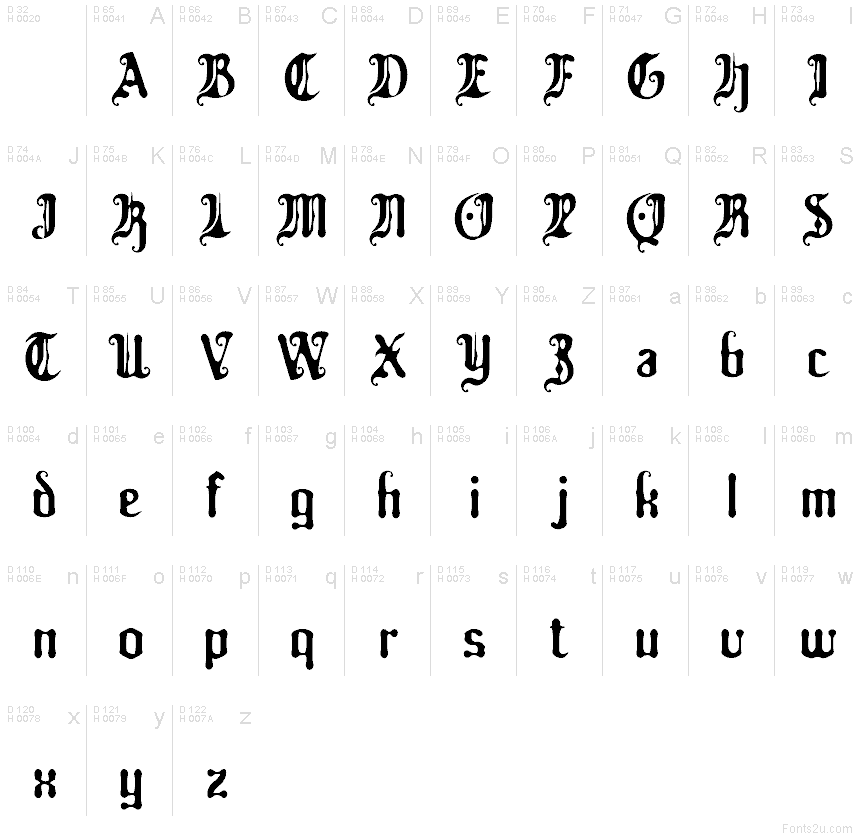
CS Bergamot Drawn font by Craft Supply Co. brings a medieval influence to its gothic typeface. This decorative font features detailed line work familiar from classic uniforms and emblems as well as frightening forms. The overall visual balance give this typeface dramatic flair and a timeless message, which is perfect in adding an authentic feel to your graphic design project.
Since CS Bergamot is a free gothic font, you can apply it in any of your projects today. It works well for logotypes, book covers, music band posters, website designs, body tattoos, product labels or packaging papers among other artworks. You can use at small or large sizes since the fine details are nicely consistent throughout the characters.